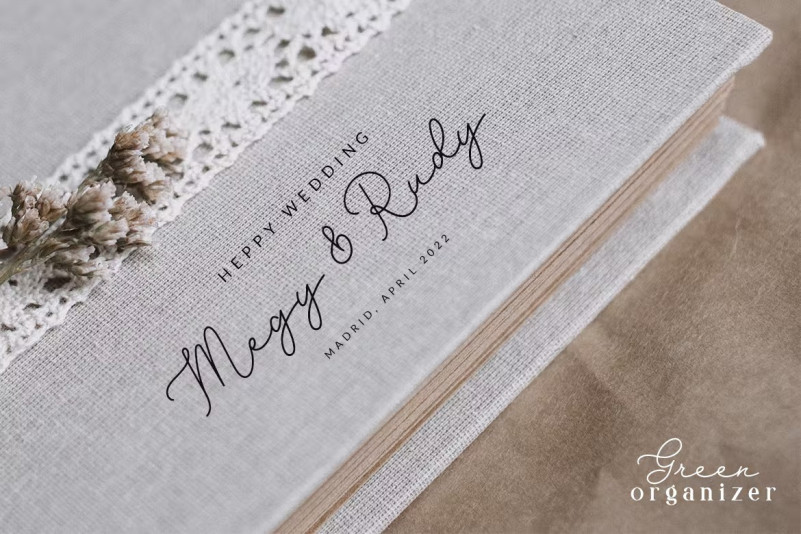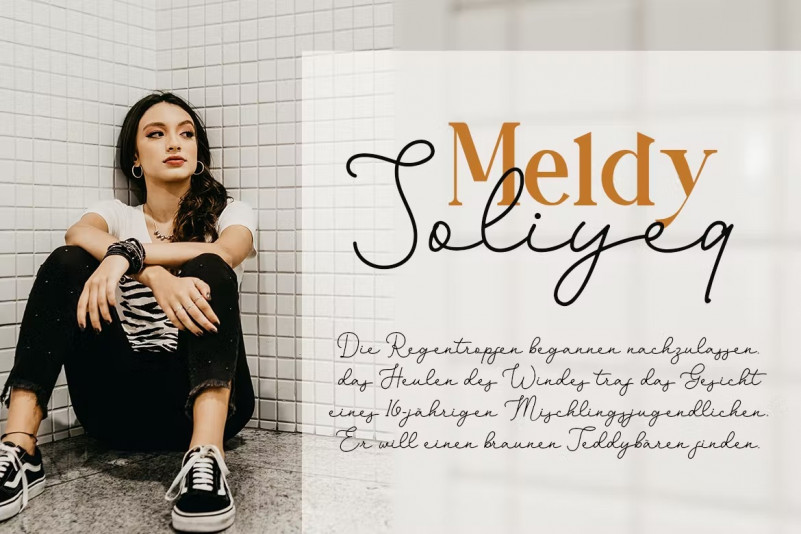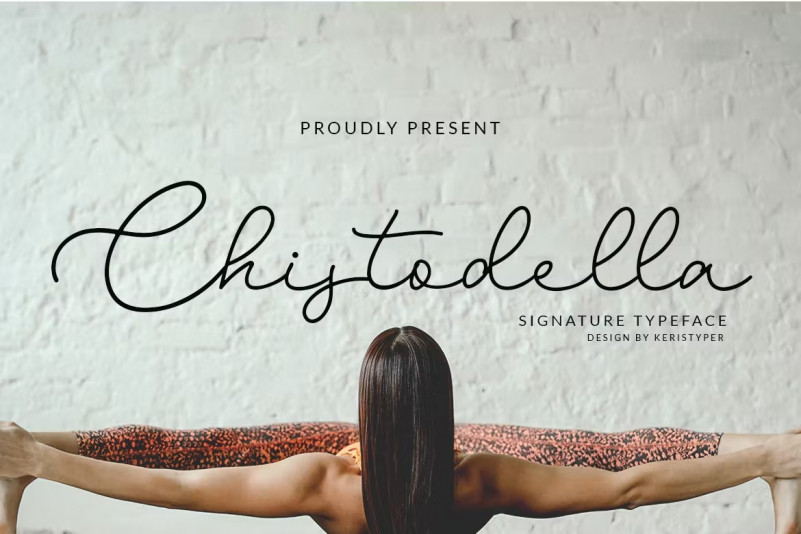
Chistodella Font
Chistodella is a calligraphy handwriting with classic style and elegant touch, inspired by lettering on the vintage. Which was created to meet the needs for your next design project. Carefully designed to work together in harmony for creating awesome typographic designs in a flash. This font is good for logo design, Social media, Movie Titles, Books Titles, short text even a long text letter, and good for your secondary text font with sans or serif. Make a stunning work with Roselites font.